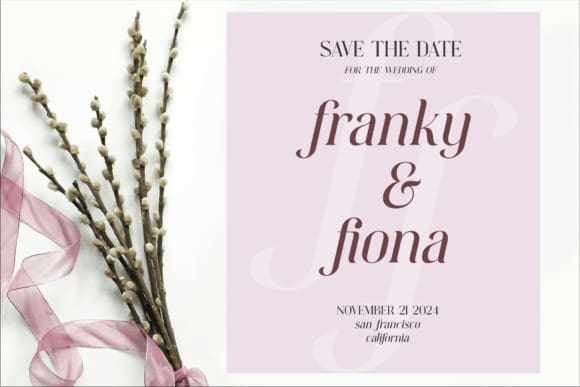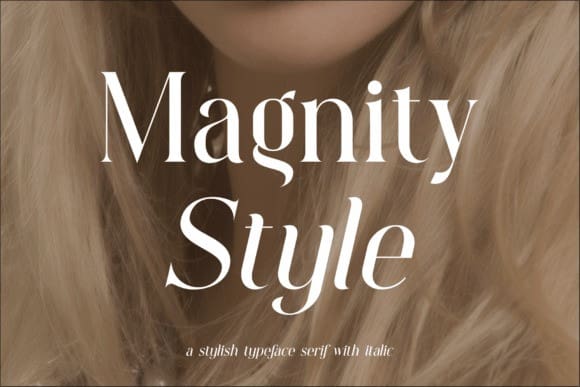
Magnity Style Font
Magnity Style Font is a stylish and elegant serif font that embodies sophistication with flair. Its meticulously crafted letterforms exude a timeless charm, striking the perfect balance between classic and contemporary aesthetics. Ideal for projects that demand a touch of refined elegance, MagnityStyle adds a distinctive allure to your designs.